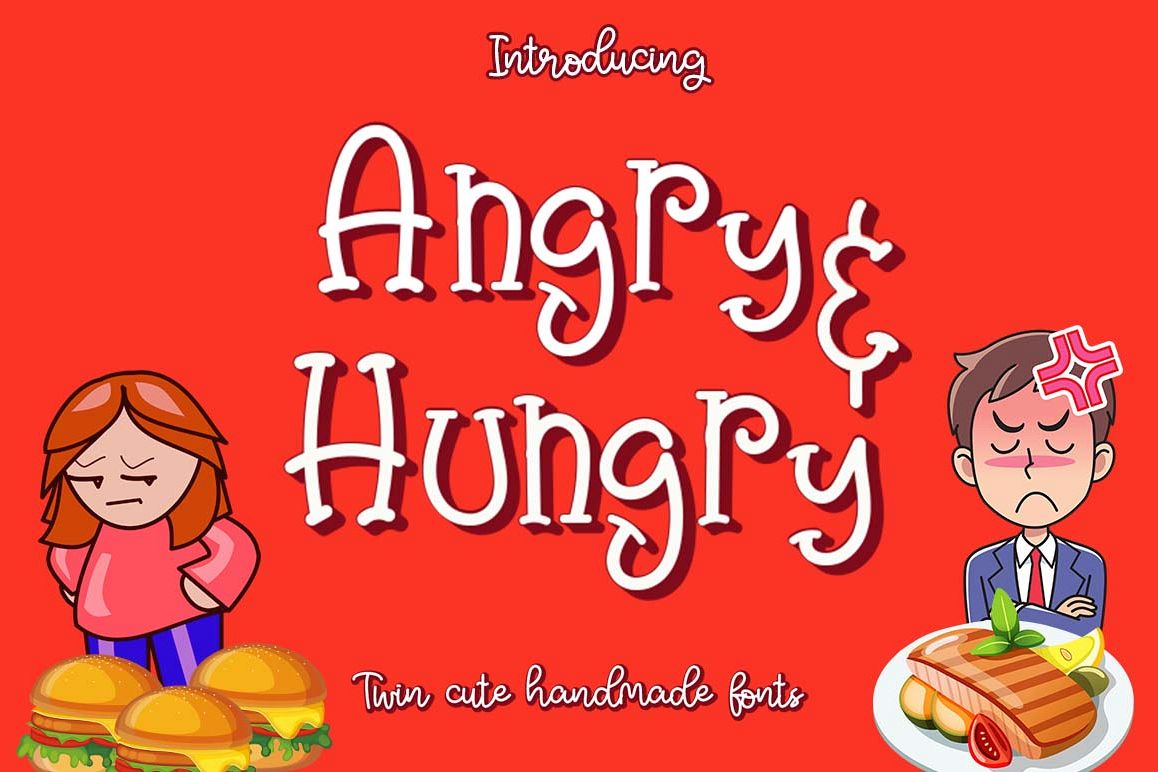
Angry & Hungry Twin Cute Fonts
I just want to introduce my new twin cute fonts in one.
These are "Angry & Hungry".
As the preview images, This font comes with funny, cute taste.